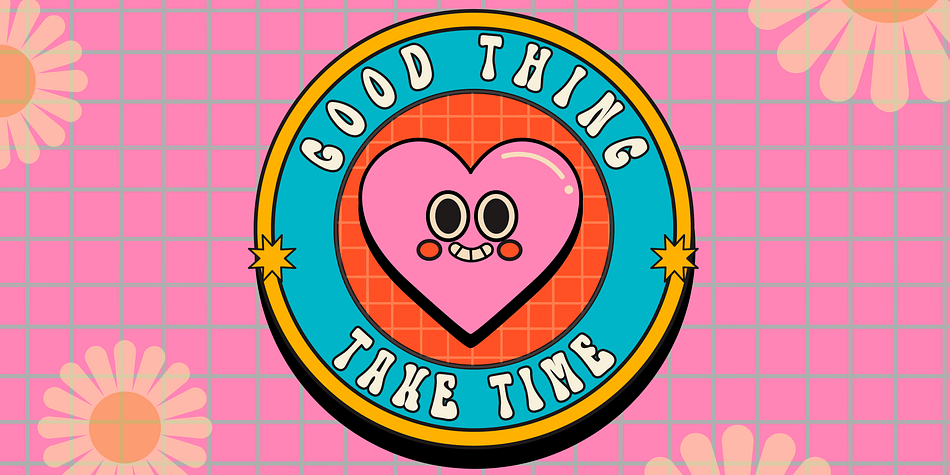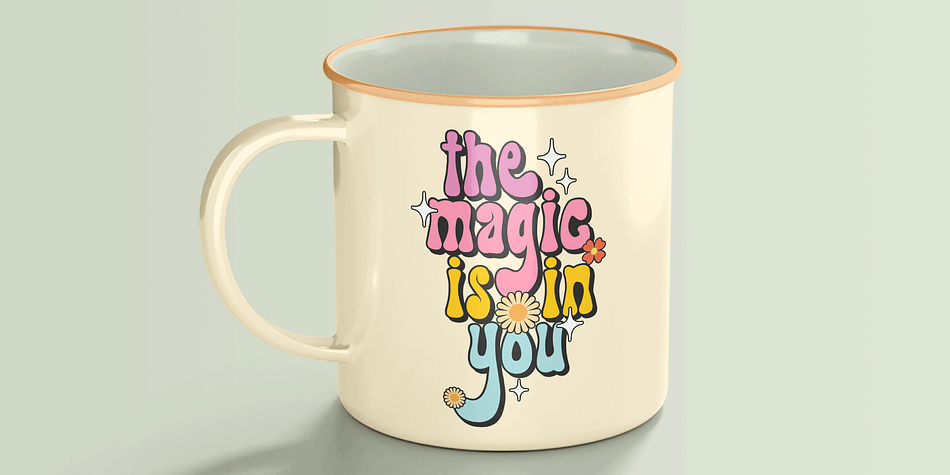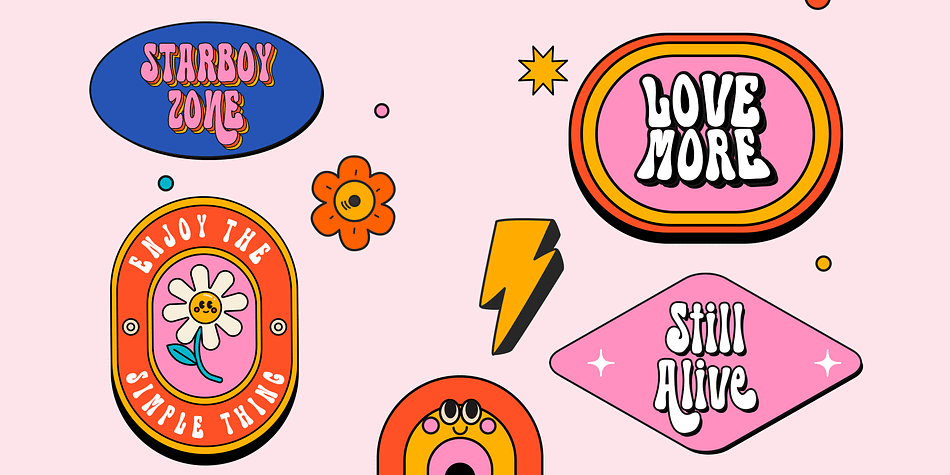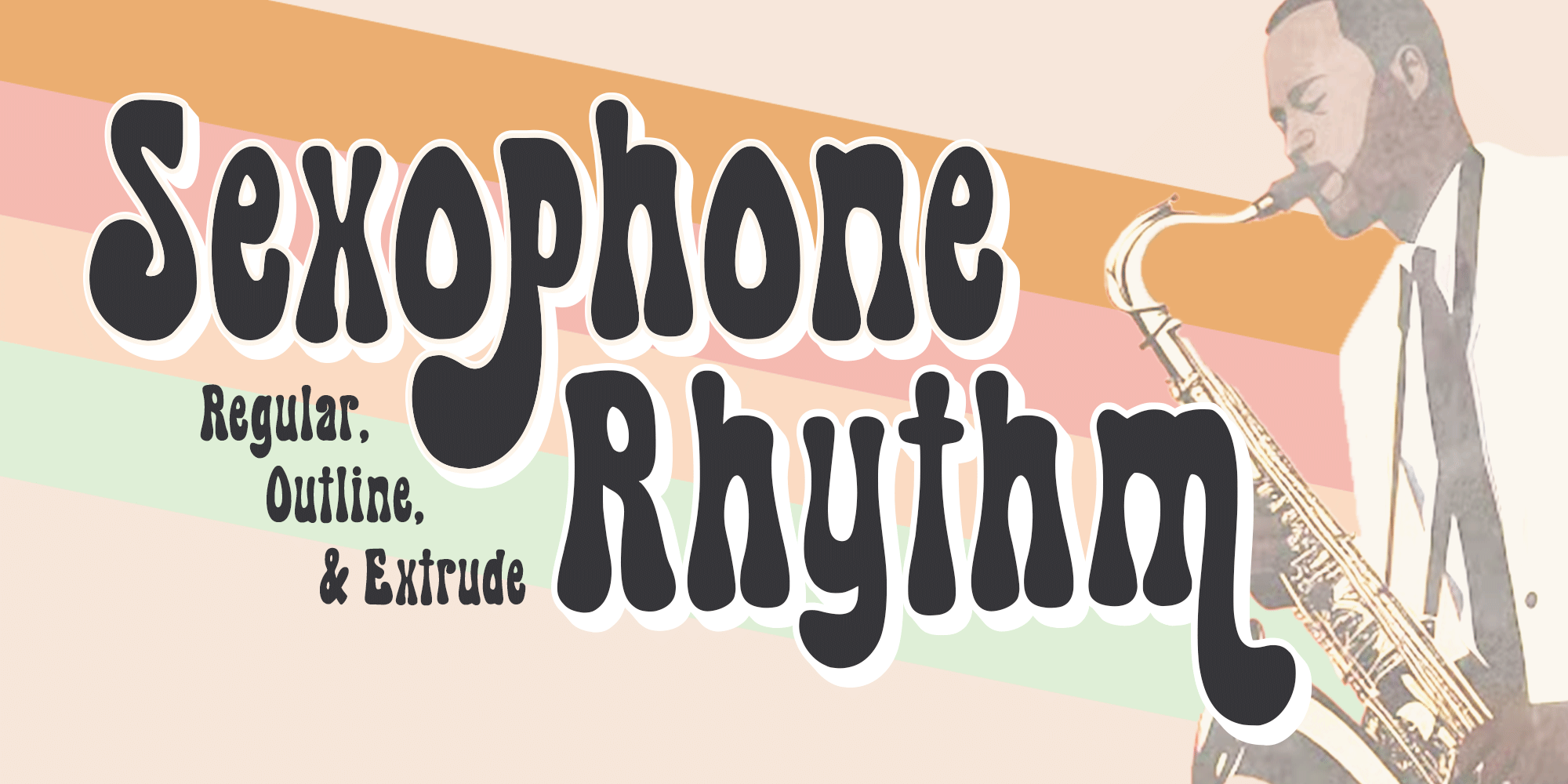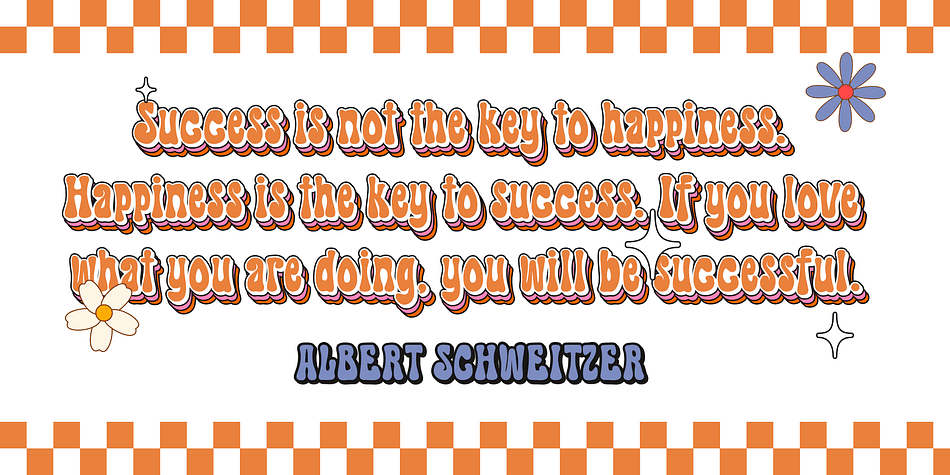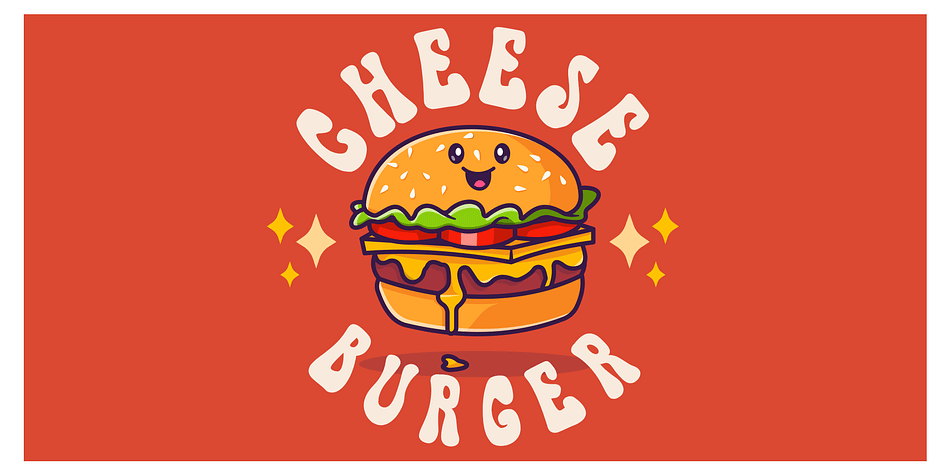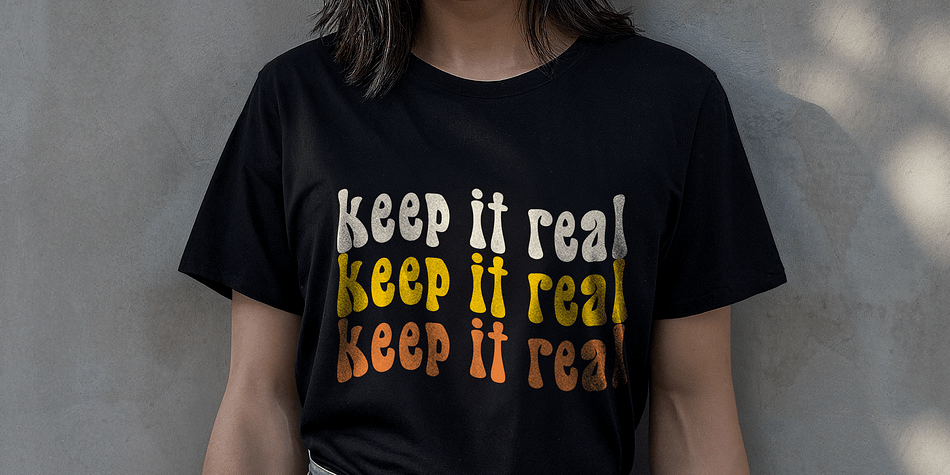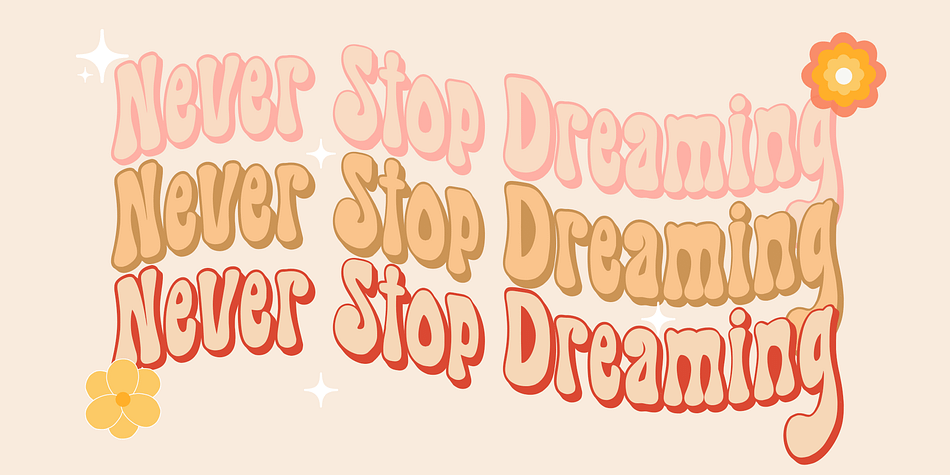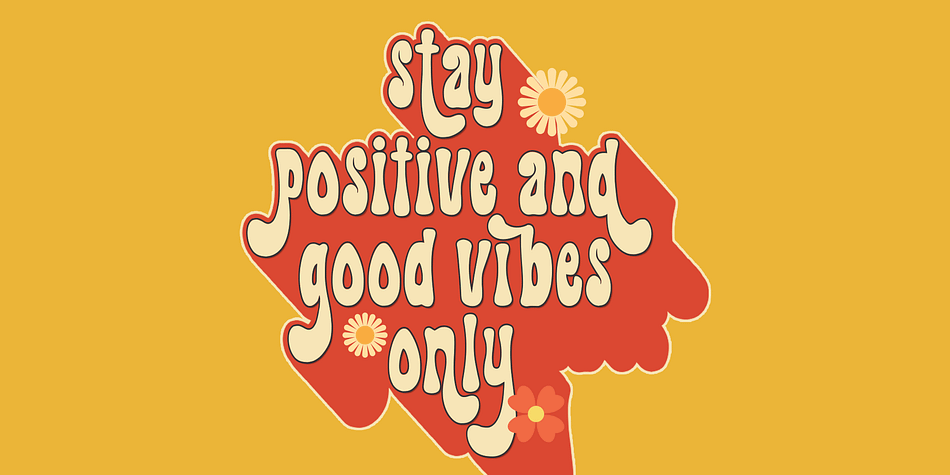
Sexophone Rhythm
Sexophone Rhythm is a retro font family. This typeface has three styles and was published by Youngtype Studio.
Sexophone Rhythm Regular, Sexophone Rhythm Extrude & Sexophone Rhythm Outline is a hand brush font made with Handmade and Groovy style. This typeface is ideal for use in thick watercolor designs or handwriting styles, such as blog titles, posters, wedding elements, t-shirts, clothing, book covers, business cards, greeting cards, branding, merchandise etc.